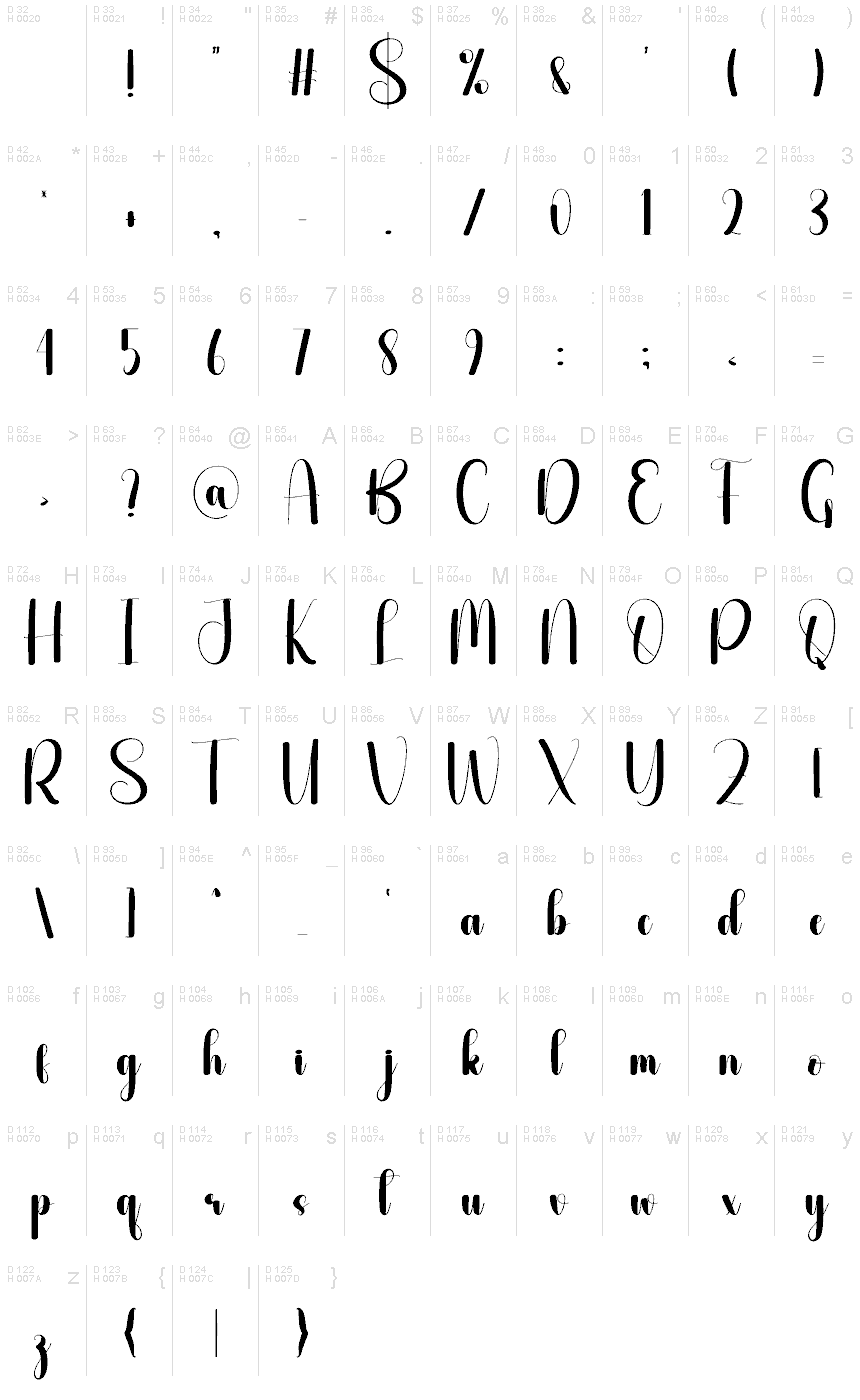
Shinyyellow
Shinyyellow font by Andi Moz is a free calligraphy font in an elegant cursive style. The letters follow each other seamlessly making for great flowing texts in addition to headlines that catch attention. Overall, the letters appear expressively formal, yet naturally graceful and with as much charisma as integrity.
The uses of this font are multi-fold – achieving that perfect look no matter the medium or project type. Some ideas include blogs and newsletters along with posters, ads, social media posts, logos and branding materials amongst a divine variety of packaging options from boxes to luxury bags.